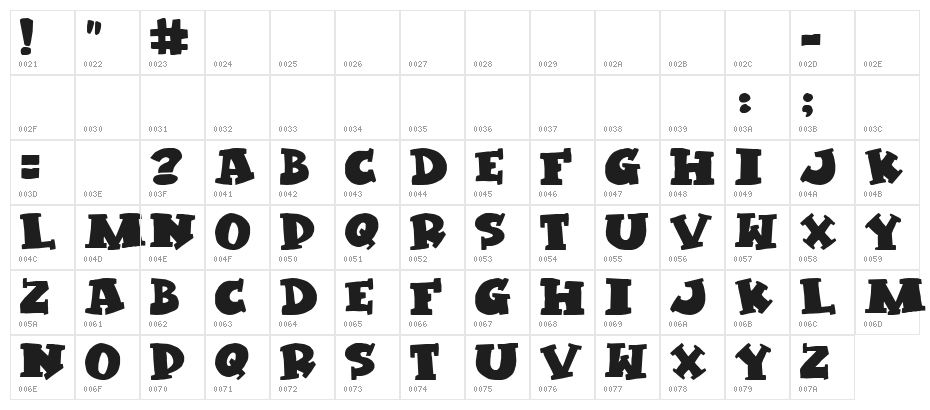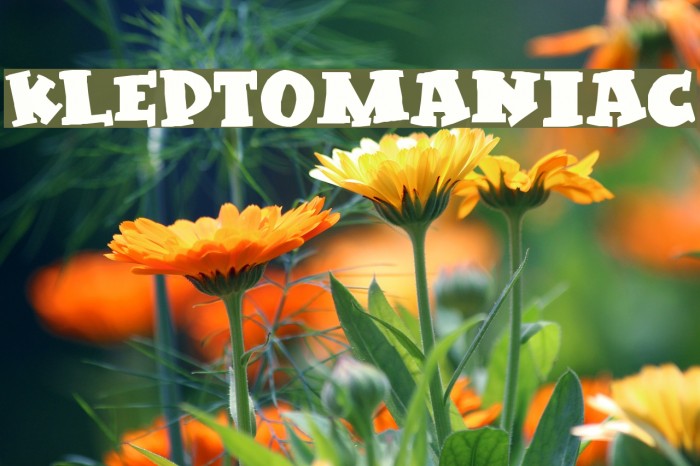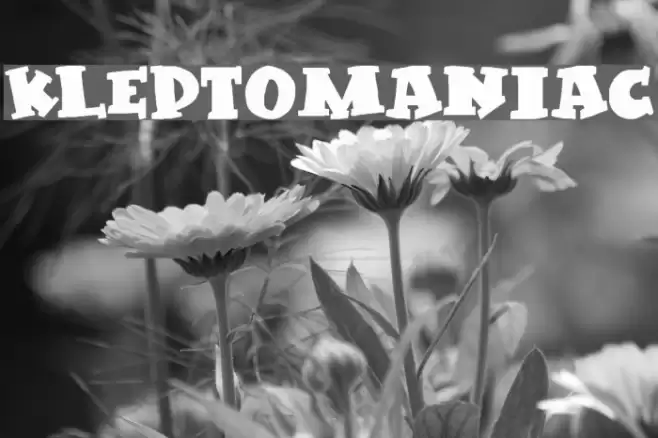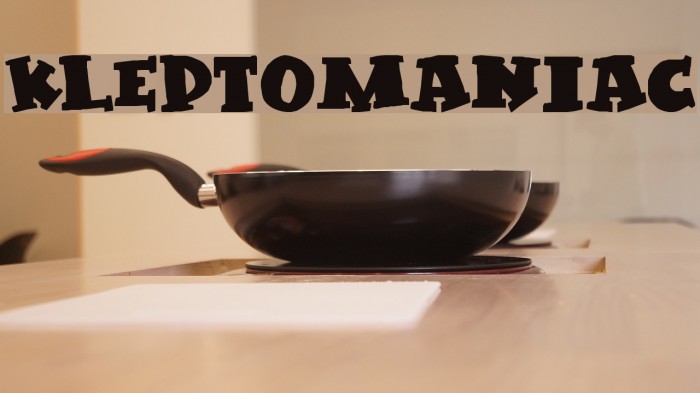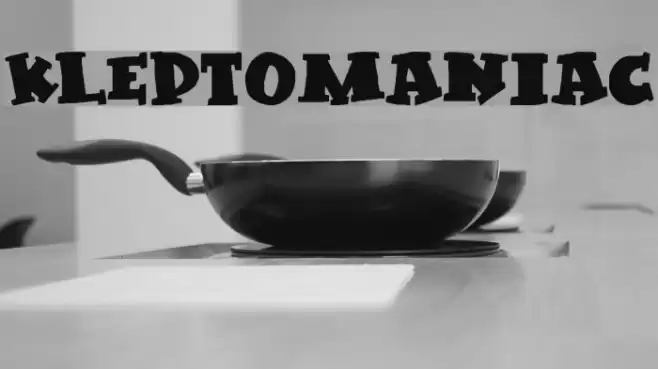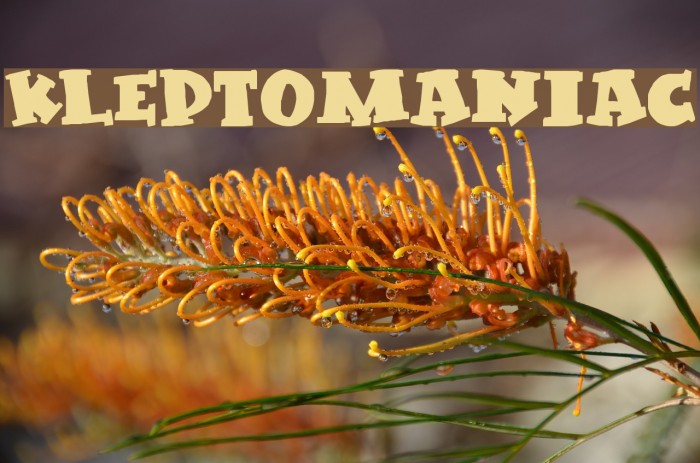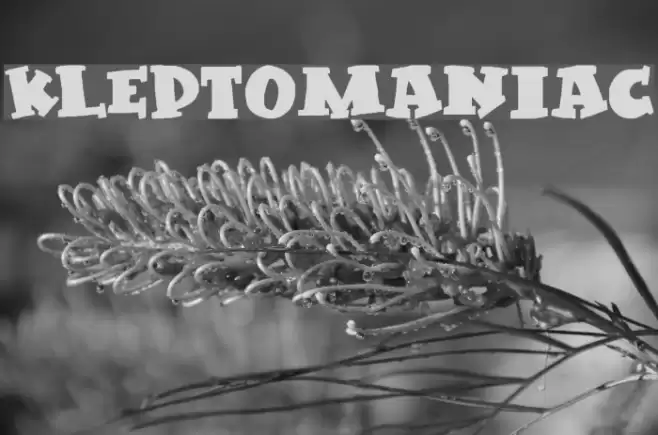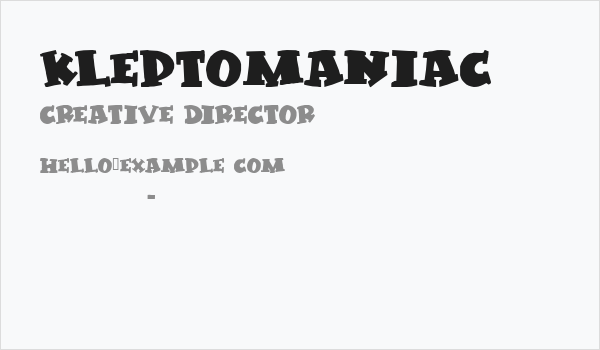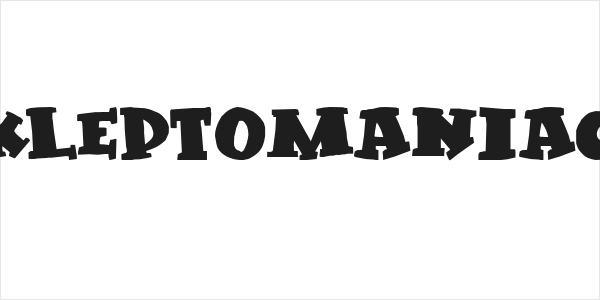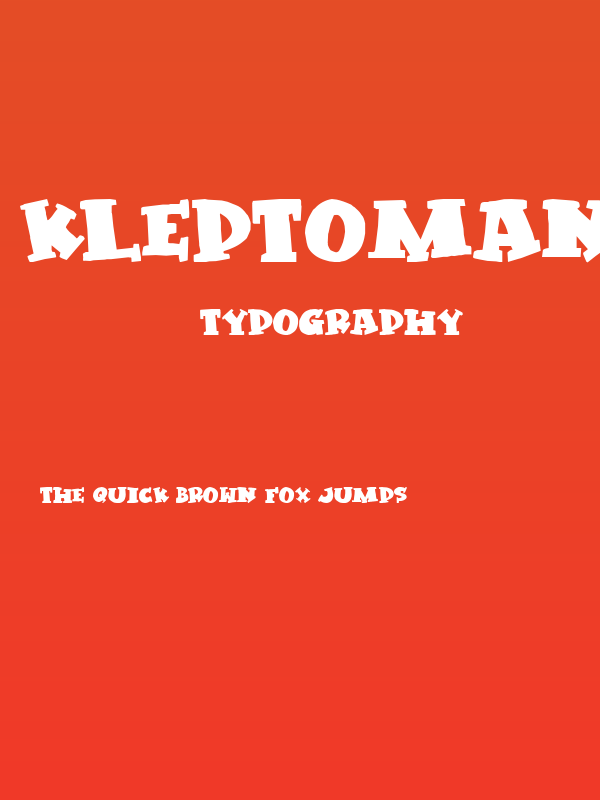
Kleptomaniac Font
Kleptomaniac Description
This font features a bold and playful style with exaggerated serifs and a slightly irregular shape, giving it a whimsical and dynamic appearance. The characters are thick and robust, with a strong presence that makes them stand out. The uppercase and lowercase letters maintain a consistent design, with the uppercase being particularly striking due to their size and weight. The numbers and special characters follow the same bold and playful theme, ensuring a cohesive look across all elements. This font is ideal for projects that require a fun and engaging visual impact.
| Proposed Projects | Perfect for children's books, playful branding, posters, and creative advertising. |